Quirky Halloween Fonts for Crafts, Parties, and Seasonal Designs
Quirky Halloween fonts bring personality to October projects without making every design feel like a serious horror poster. I look for unusual letter shapes, bouncy baselines, cartoon details, chunky outlines, and spooky motifs that remain easy to read on invitations, shirts, stickers, classroom signs, and treat packaging.
This collection focuses on playful spooky designs rather than realistic gore. Some picks lean cute and kid-friendly, while others use drips, jagged edges, shadows, or monster-inspired details.
The best quirky Halloween fonts combine readable display lettering with one memorable seasonal detail. Wonky Halloween is my top pick for hand-drawn crafts, Halloween Wiggle suits energetic headlines, and Ghost Balloon 3D creates bold party graphics. Choose chunky letters for cutting projects and simpler shapes when your text must remain clear at small sizes.
| Wonky Halloween | Hand-drawn party crafts | Display and dingbats |
| Halloween Wiggle | Energetic posters | Zigzag display |
| Ghost Balloon 3D | Bold party graphics | 3D display |
| Spooky Cartoon | Childrenโs designs | Cartoon display |
| Scary Halloween Trio | Coordinated font sets | Three-font collection |
| Gobble Ghosts | Candy-colored lettering | Color font |
| Halloween Doodle | Seasonal icons | Dingbat font |
1. Spook Halloween
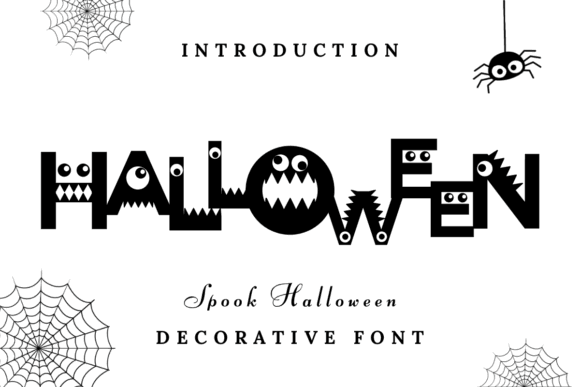
Spook Halloween is a bold decorative font for monster-themed headlines, childrenโs party signs, and playful October merchandise. Its uppercase letters contain quirky details such as eyes, teeth, cutouts, and creature-like shapes, so even a short word can function as the main illustration.
I like this font most for large, simple wording where every character has room to show. The detailed letters may become crowded in long sentences or small vinyl cuts, so I would pair them with a plain sans serif for dates and supporting information.
2. Spooky Halloween
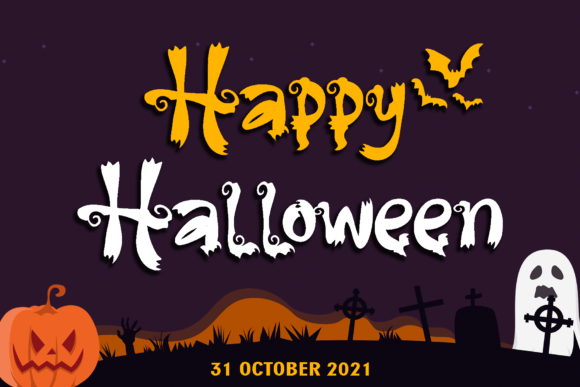
Spooky Halloween is a decorative display font for invitations, October signs, and craft projects that need an eerie style without losing legibility. Its irregular character shapes add movement, while the available glyphs and swashes provide extra ways to customize short phrases.
My take is that this font suits slightly older or more dramatic Halloween themes than the candy-colored options below. Decorative alternates can make a title feel custom, but using too many in one line may weaken the visual rhythm.
3. Halloween Spooky
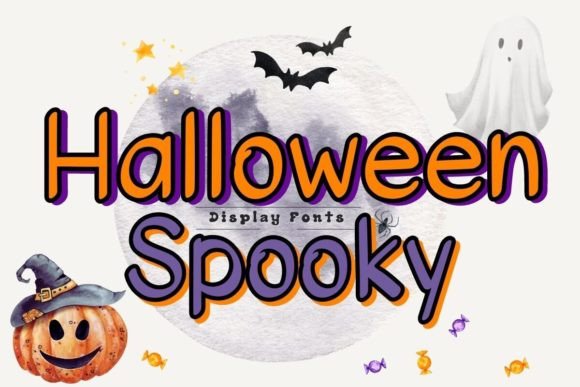
Halloween Spooky is a modern display typeface for haunted-house flyers, party invitations, and seasonal social graphics. It balances eerie character shapes with a relatively straightforward structure, making it useful when a design needs atmosphere without elaborate illustrations inside every letter.
I would use it for medium-length titles rather than paragraphs. Its personality is strong enough to establish the theme, yet the cleaner construction leaves room for pumpkins, ghosts, or other graphics around the wording.
4. Monster Halloween
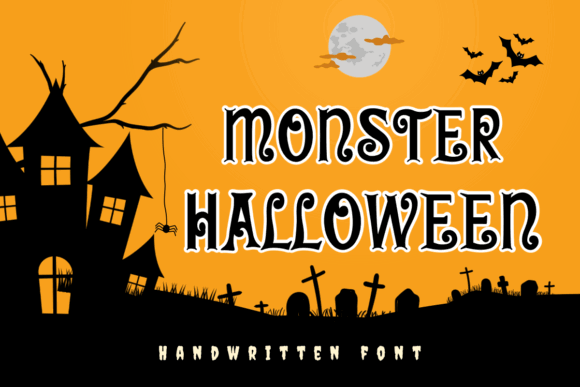
Monster Halloween is a curly handwritten font for cheerful monster crafts, classroom decorations, and kid-friendly trick-or-treat designs. The loose strokes and unusual curls give the lettering an animated feel that looks more mischievous than frightening.
I like it for projects where rigid block lettering would feel too formal. Because the lines are relatively lively and irregular, generous letter spacing and short phrases will usually produce the clearest result.
5. Scary Halloween Trio
Scary Halloween Trio is a coordinated font set for designers who need headlines, supporting type, and decorative symbols in one package. The collection combines sans serif, serif, and dingbat styles, making it practical for layered invitations, childrenโs games, and complete party suites.
How do I pair a quirky Halloween font with another typeface?
u003cstrongu003ePair a quirky Halloween display font with a plain sans serif or simple serif that does not repeat its decorative features.u003c/strongu003e Use the Halloween font for the main headline, then set dates, addresses, prices, instructions, and body copy in the quieter companion.